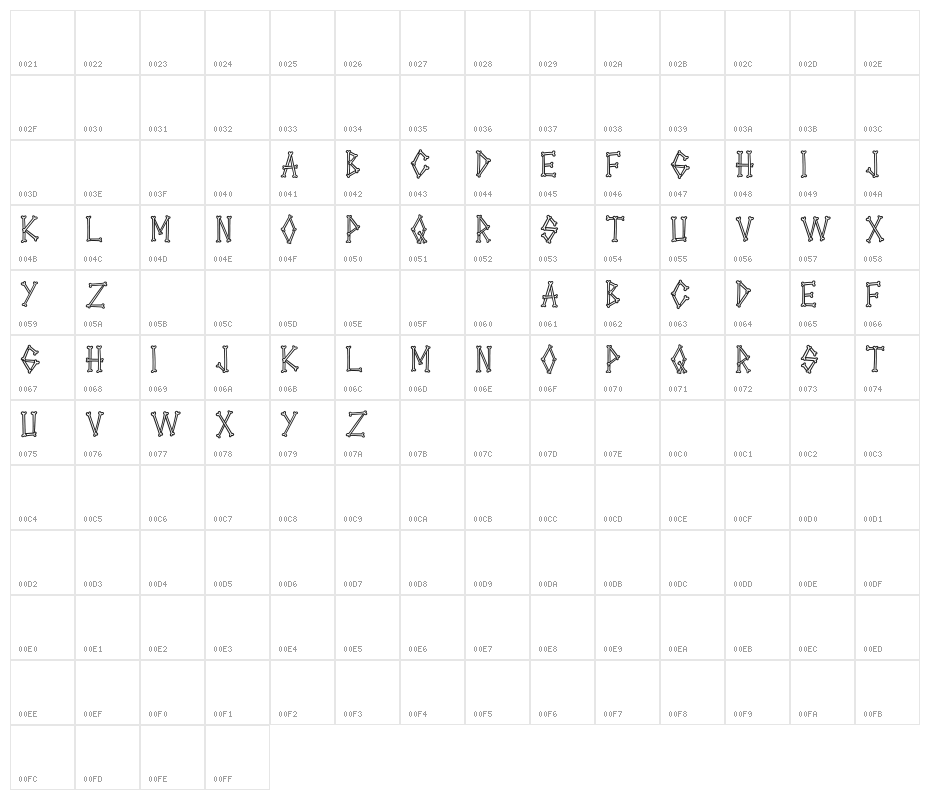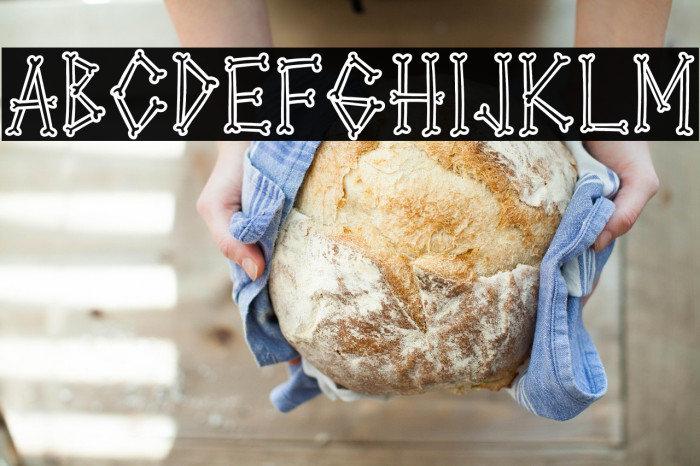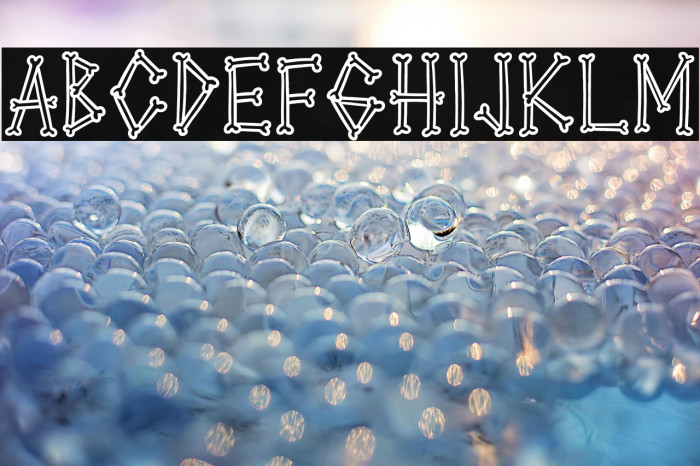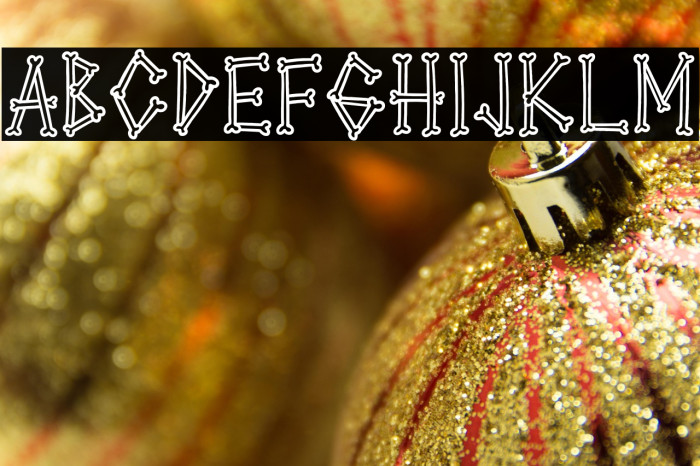
Warbones Font
Warbones Description
This font features a unique and playful design where each character is constructed to resemble bones. The skeletal structure gives it a distinctive and edgy appearance, making it ideal for themes related to Halloween, horror, or anything requiring a spooky aesthetic. The uppercase letters are crafted with a consistent bone-like motif, maintaining a uniform style throughout. The font's decorative nature makes it stand out, with each letter having a slightly irregular shape that adds to its charm. The strokes are bold and the outlines are clear, ensuring readability while maintaining its thematic design.
| Proposed Projects | Perfect for Halloween invitations, horror-themed posters, or any project needing a spooky, playful touch. |